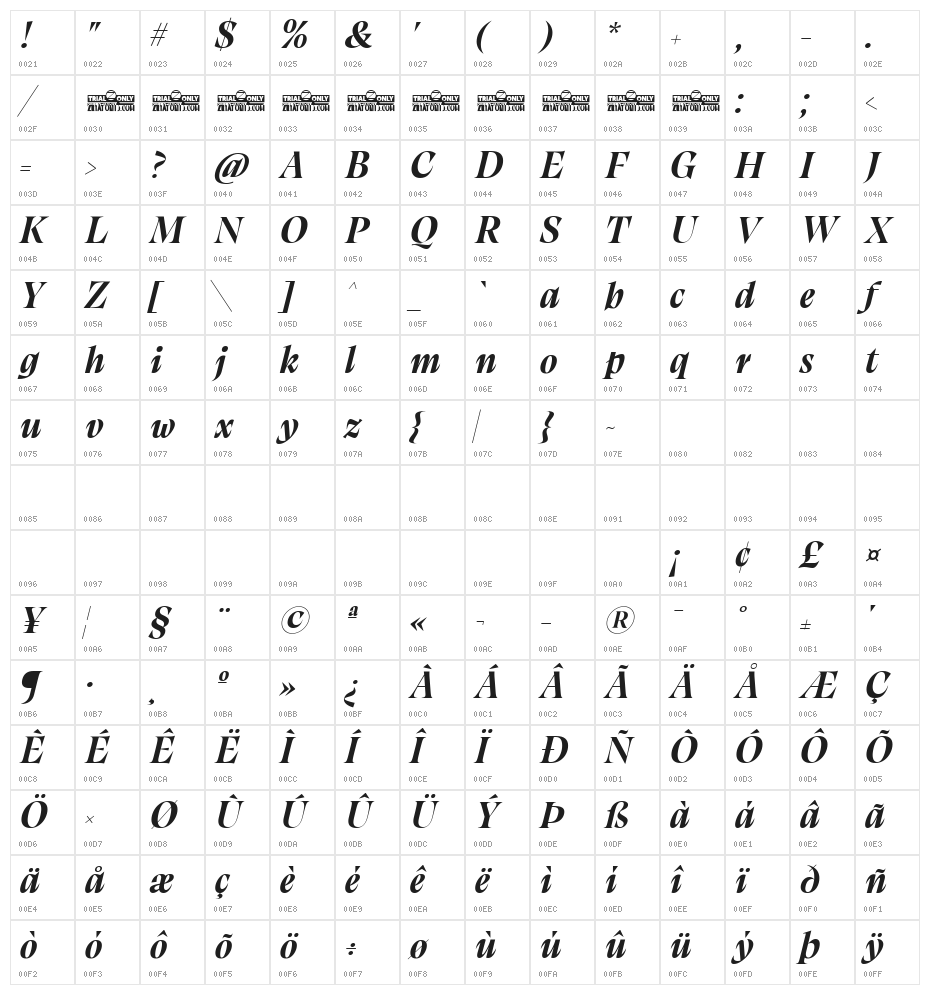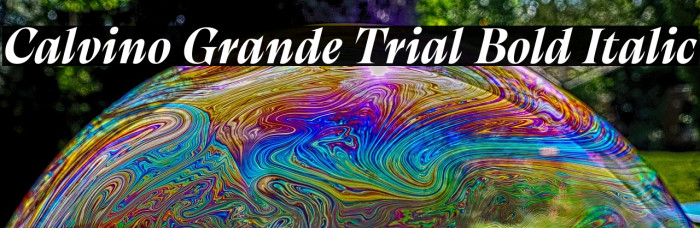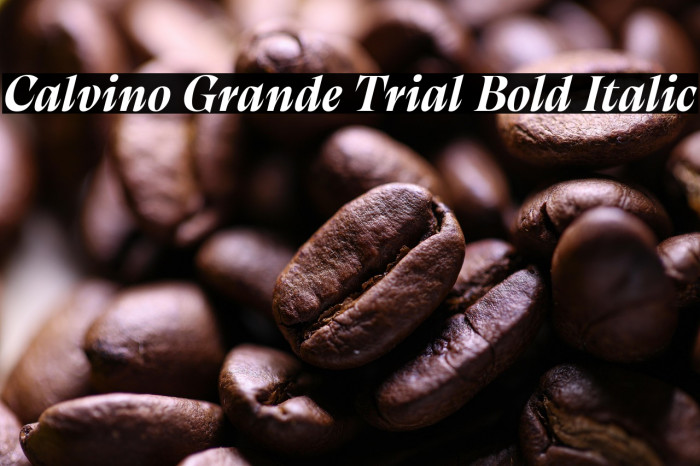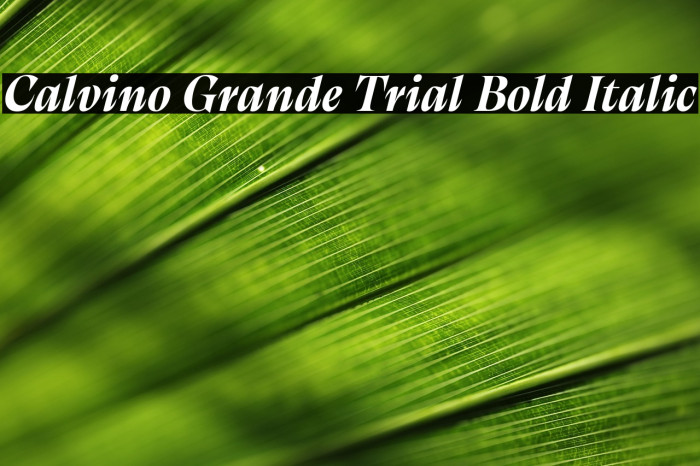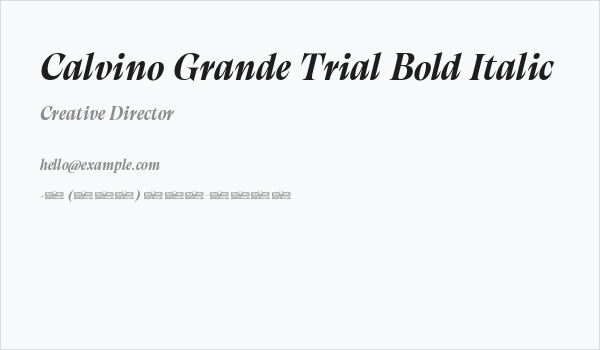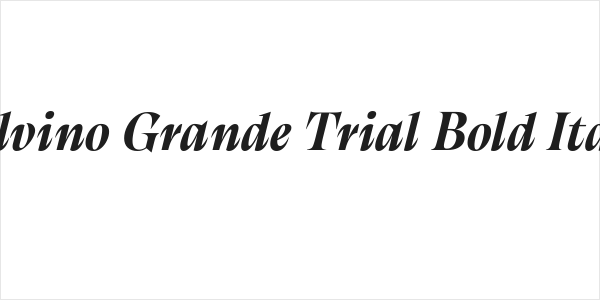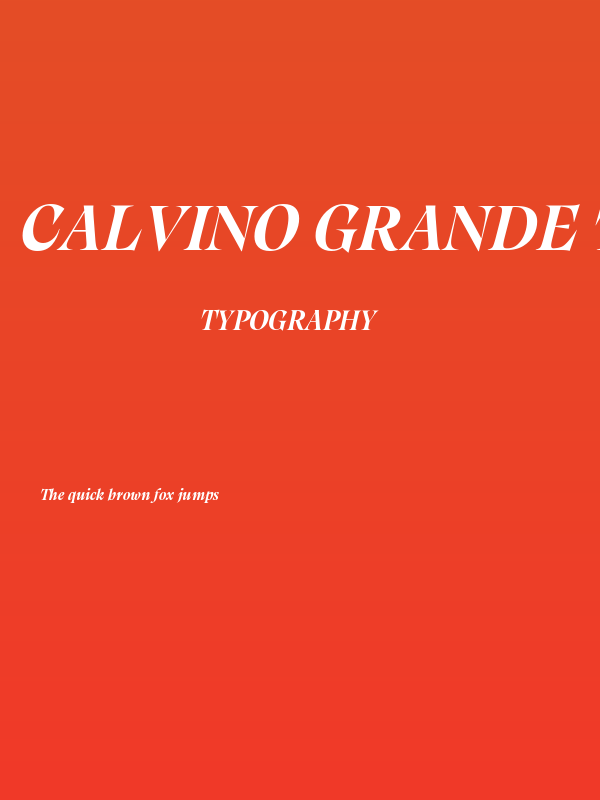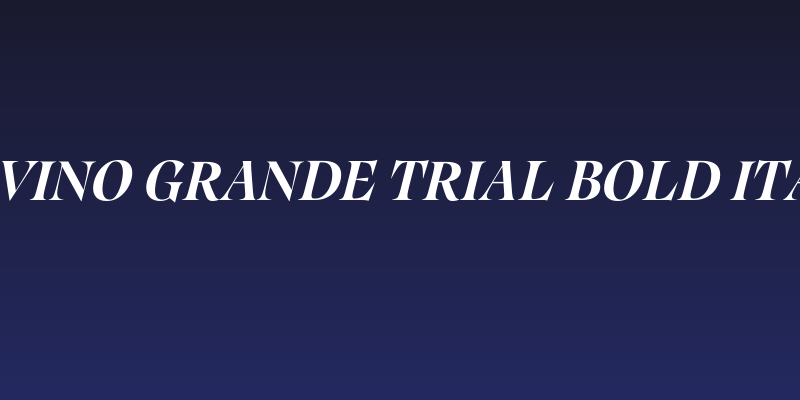
Calvino Grande Trial Bold Italic Font
Calvino Grande Trial Bold Italic Description
This font exhibits a bold and italicized style, characterized by its elegant and flowing letterforms. The strokes are thick, providing a strong visual impact, while the italic slant adds a sense of movement and sophistication. The serifs are pronounced, giving the typeface a classic and timeless feel. The uppercase letters are tall and commanding, while the lowercase letters maintain a consistent rhythm and balance. The numerals and special characters are designed with the same attention to detail, ensuring uniformity across all glyphs. This font is suitable for projects that require a touch of elegance and authority.
| Use Case | Headlines, Logos, Editorial Design |
| Proposed Projects | Ideal for luxury branding, editorial design, book covers, and high-end packaging. |